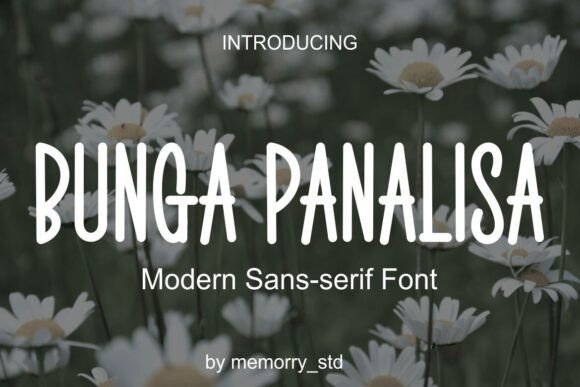
Bunga Panalisa Font: Elevate Your Creative Projects with a Modern and Authentic Typeface
In the realm of typography, a font can make or break the visual identity of a creative project. For designers, marketers, and content creators, finding the perfect typeface that balances modernity with authenticity is a perpetual quest. This is where Bunga Panalisa Font comes into play, offering a versatile and flexible solution for a wide range of applications. Whether you’re working on quotes, logos, blog headers, posters, invitations, stationery, or more, this font is designed to stand out across different mediums, adding a distinctive touch to any creative work.
The Essence of Bunga Panalisa Font
Bunga Panalisa Font is more than just a typeface; it’s a statement of modernity and authenticity. Its design is rooted in the principles of clarity, legibility, and aesthetic appeal, making it an ideal choice for projects that demand a professional and creative edge. The font’s versatility stems from its clean lines, balanced proportions, and a unique character that sets it apart from more traditional typefaces.
One of the key features of Bunga Panalisa Font is its ability to adapt to various contexts. Whether you’re creating a bold logo that needs to make a statement or a subtle blog header that guides the reader through your content, this font adjusts seamlessly to meet your design needs. Its flexibility extends to both digital and print media, ensuring that your creative work maintains its integrity across different platforms.
Applications of Bunga Panalisa Font
The applications of Bunga Panalisa Font are vast and varied. Here are some of the key areas where this font can make a significant impact:
- Quotes and Inspirational Content: Add a touch of elegance and inspiration to your quotes with a font that speaks to the soul. Bunga Panalisa Font brings a sense of depth and emotion to your messages, making them more impactful and shareable.
- Logos and Branding: In the competitive world of branding, standing out is crucial. This font offers a unique and modern aesthetic that can help define your brand’s identity and leave a lasting impression on your audience.
- Blog Headers and Titles: Elevate your blog’s visual appeal with headers and titles that capture attention. Bunga Panalisa Font adds a professional touch to your content, making it more engaging and readable.
- Posters and Flyers: Whether you’re advertising an event, promoting a product, or spreading a message, Bunga Panalisa Font can help you create visually stunning posters and flyers that stand out.
- Invitations and Stationery: For weddings, parties, or corporate events, this font brings a level of sophistication and charm to your invitations and stationery, setting the tone for a memorable experience.
Why Choose Bunga Panalisa Font?
Choosing Bunga Panalisa Font for your creative projects comes with several advantages:
- Unique Design: In a sea of generic typefaces, Bunga Panalisa Font offers a breath of fresh air with its distinctive design that captures attention and fosters recognition.
- Versatility: Its adaptability to different contexts and mediums makes it a valuable asset for any creative or brand project.
- Professionalism: The font exudes a sense of professionalism and modernity, elevating the quality of your creative work.
- Easy to Read: Despite its unique design, Bunga Panalisa Font maintains high legibility, ensuring that your message is conveyed clearly and effectively.
How to Use Bunga Panalisa Font Effectively
To maximize the potential of Bunga Panalisa Font, consider the following tips:
- Pair it with Complementary Fonts: For optimal results, pair Bunga Panalisa Font with fonts that complement its style. A combination of a bold, modern font with a simpler typeface can create visual interest and hierarchy in your design.
- Adjust Size and Weight: Experiment with different sizes and weights of Bunga Panalisa Font to create contrast and emphasize key points in your content.
- Consider Color and Background: The impact of Bunga Panalisa Font can be further enhanced by choosing colors and backgrounds that complement its design. Ensure sufficient contrast for readability and consider the emotional impact of your color choices.
Bunga Panalisa Font stands out as a modern and authentic typeface that can elevate your creative projects to new heights. Its versatility, unique design, and professional appeal make it an excellent choice for a wide range of applications, from branding and logos to blog headers and posters. By incorporating Bunga Panalisa Font into your design toolkit, you can add a distinctive touch to your work, ensuring it stands out in a crowded digital landscape.
Whether you’re a designer looking for a fresh perspective, a marketer aiming to boost your brand’s visual identity, or a content creator seeking to enhance your blog’s aesthetic, Bunga Panalisa Font offers a solution that combines style, functionality, and creativity. Embrace the possibilities with Bunga Panalisa Font and discover a new dimension of typographic excellence.